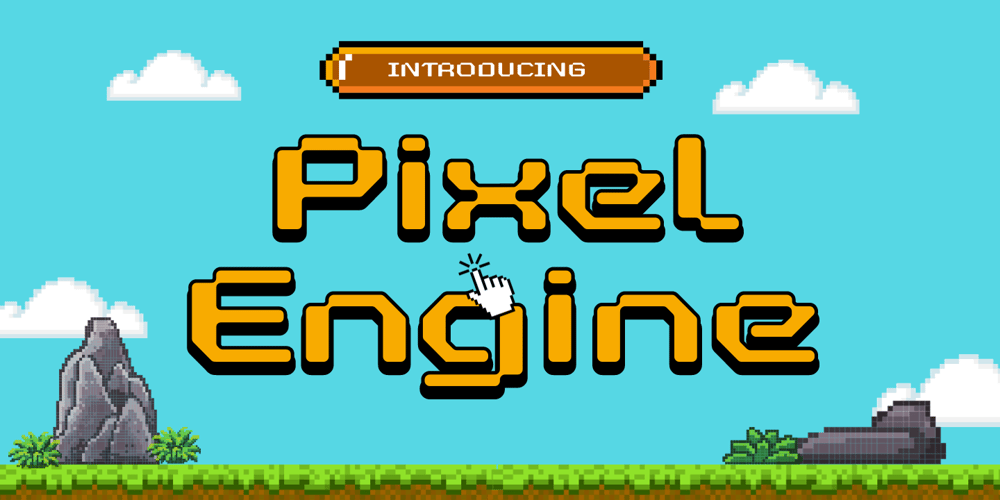
Pixel Engine Font Family was designed by Muhamad Yusron Billah and published by Sronstudio. Pixel Engine contains 1 styles and family package options. Unleash a nostalgic vibe with ‘Pixel Engine’, a font that pays homage to the golden era of gaming. This pixel-inspired typeface effortlessly blends the charm of retro aesthetics with a touch of modern design. Ideal for gaming logos, pixel art, or any project that craves a vintage arcade feel, ‘Pixel Enginel’ brings a playful nod to the past while staying firmly rooted in the present.Features:- Uppercase & Lowercase- Numeral & Punctuation- PUA Encoded- Multilingual support- Simple Installation- Work both on Mac and WindowsThank you very much 🙂